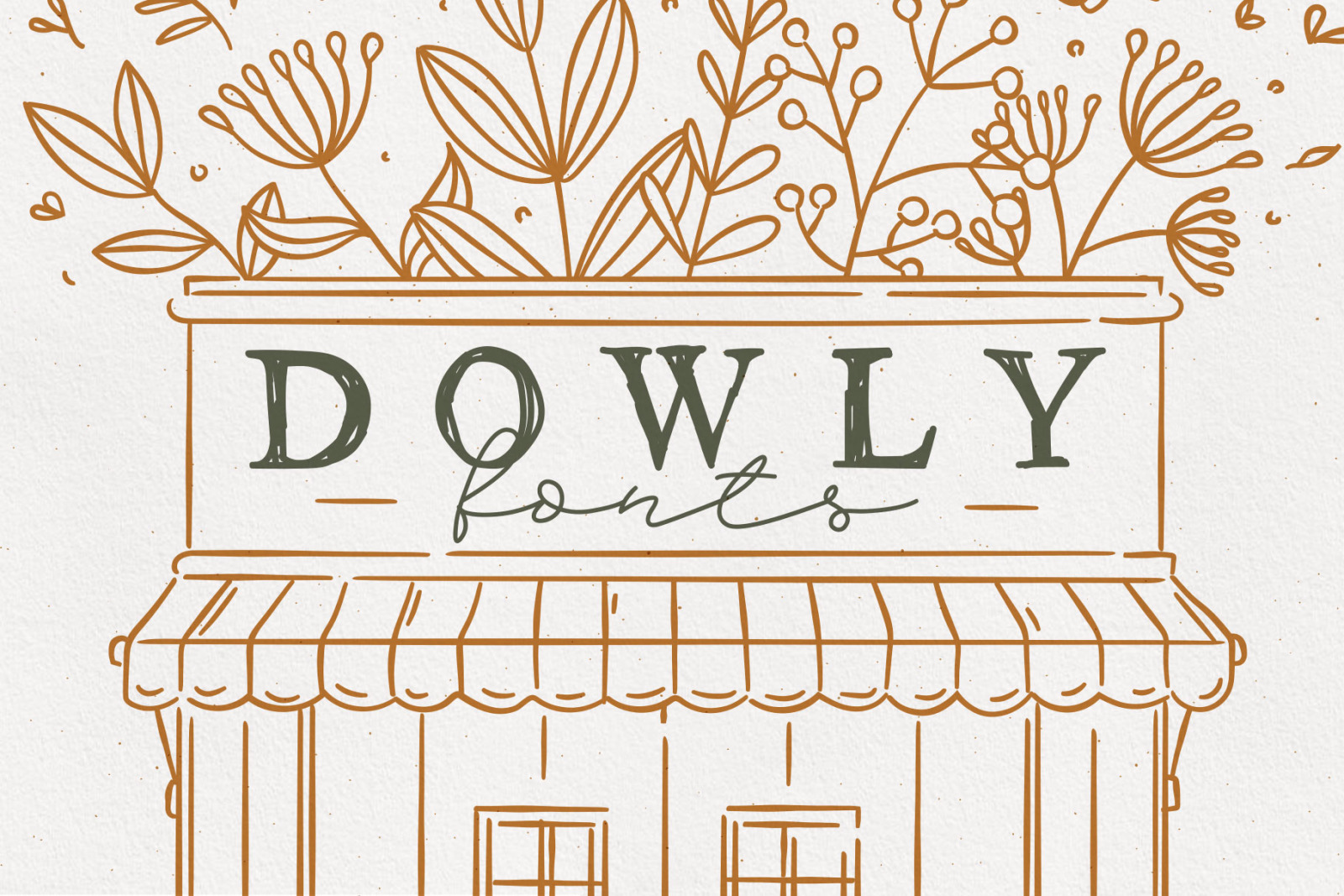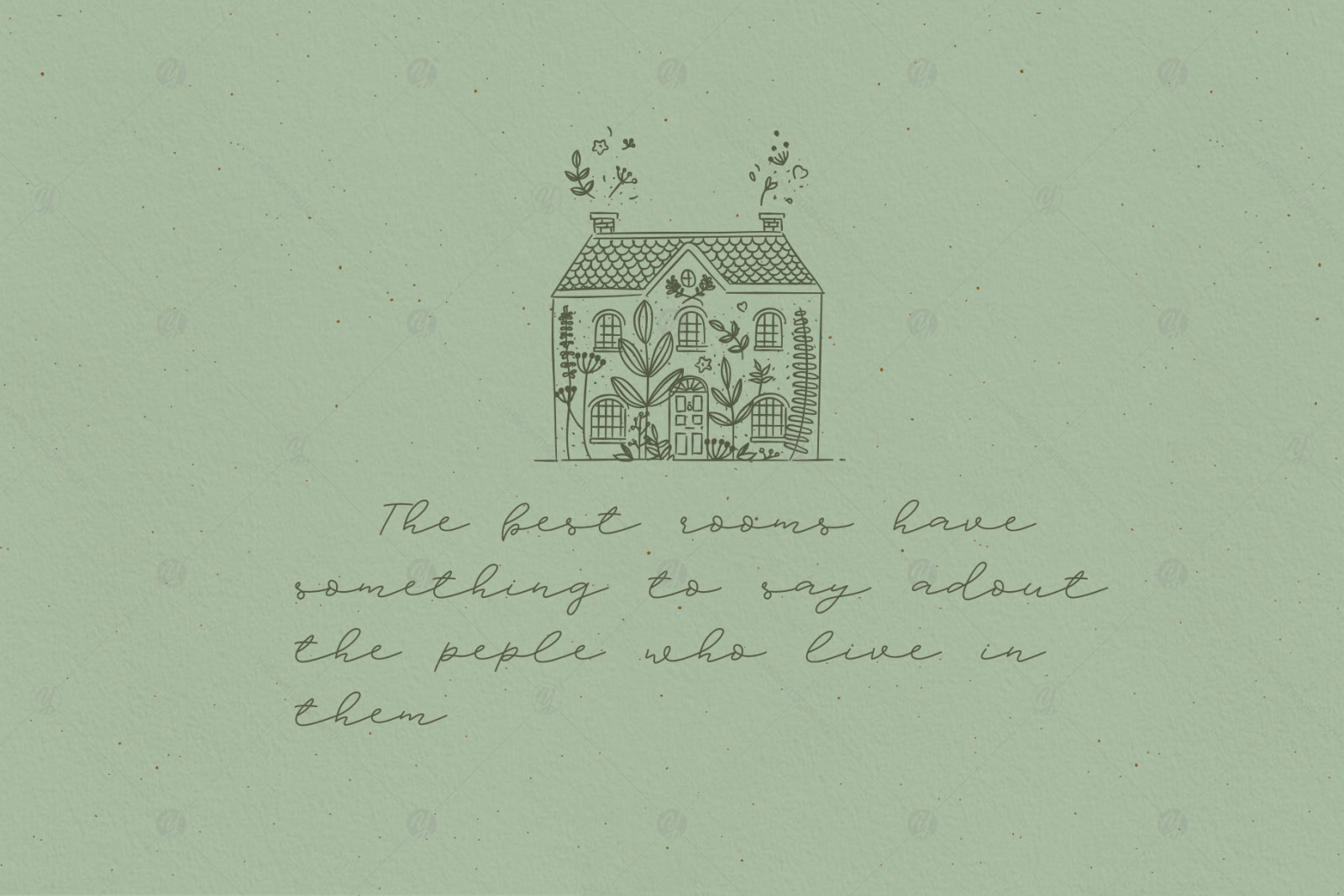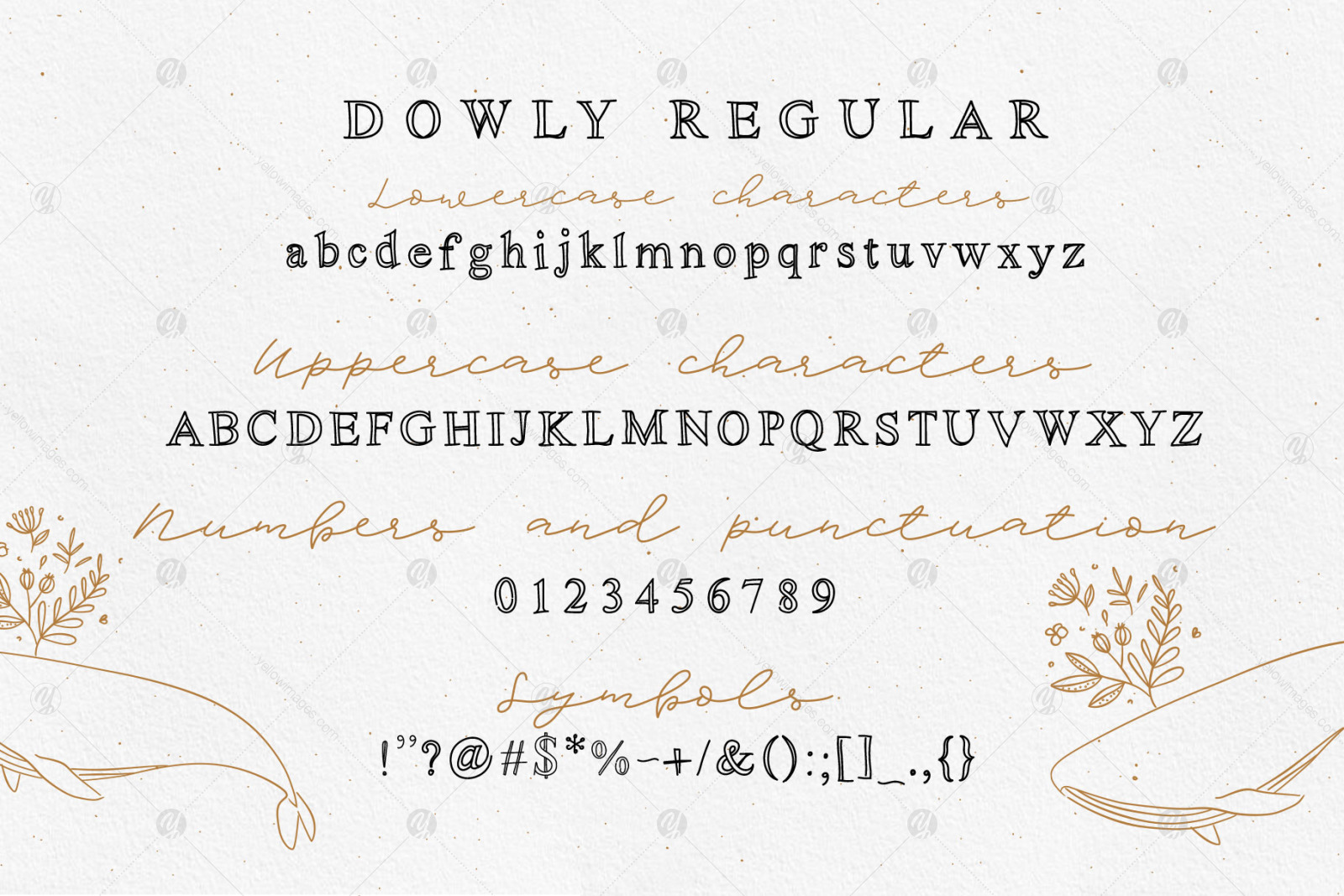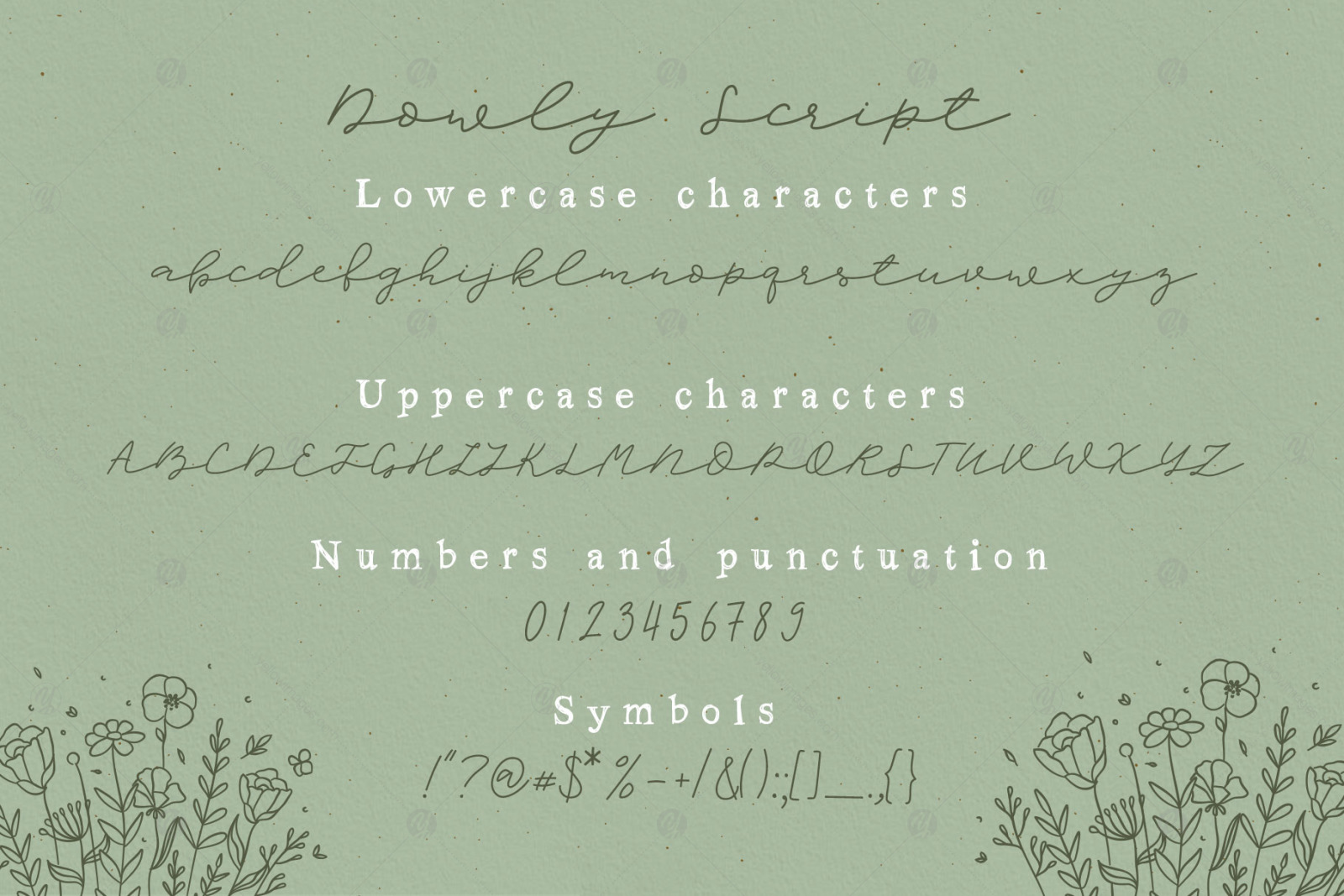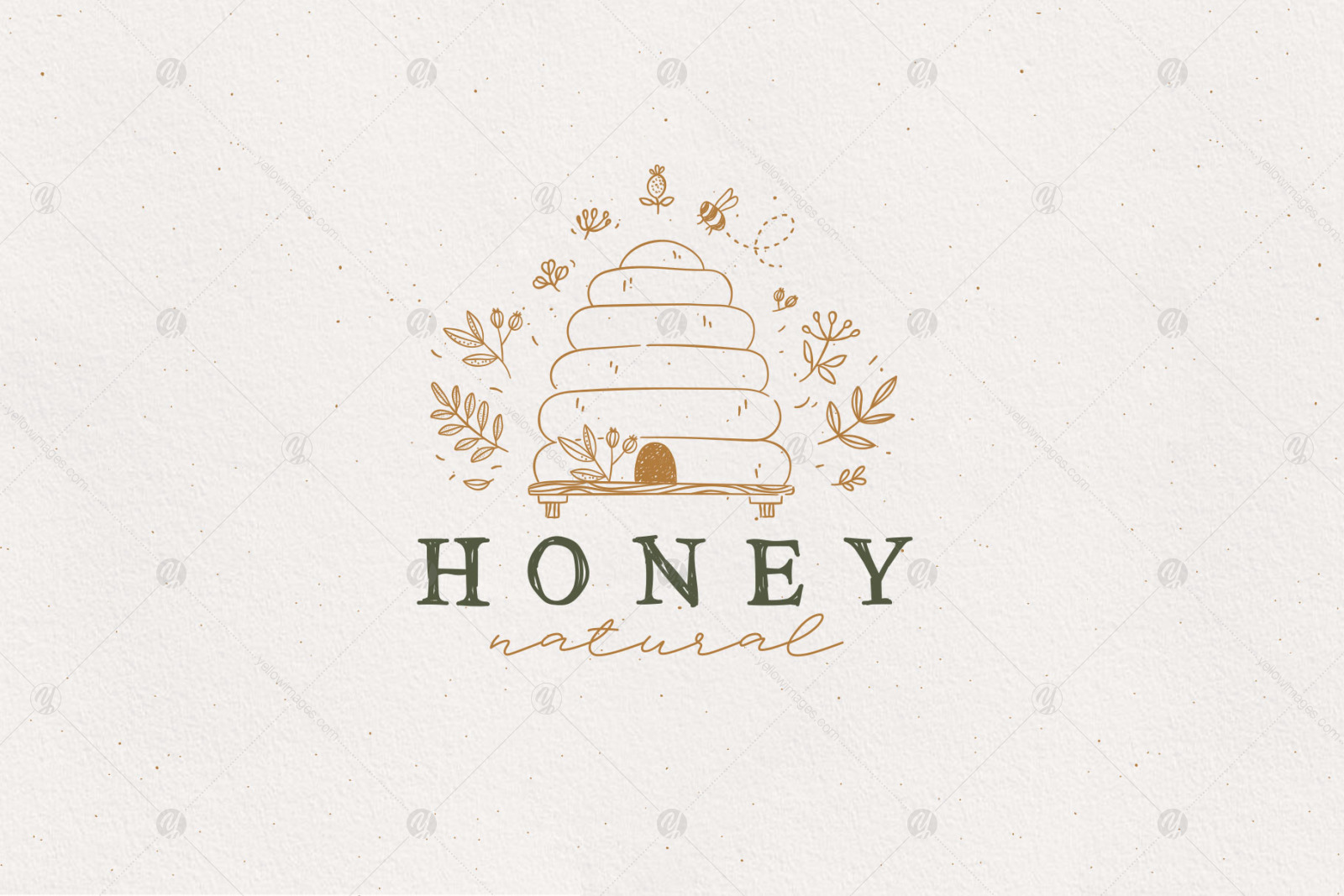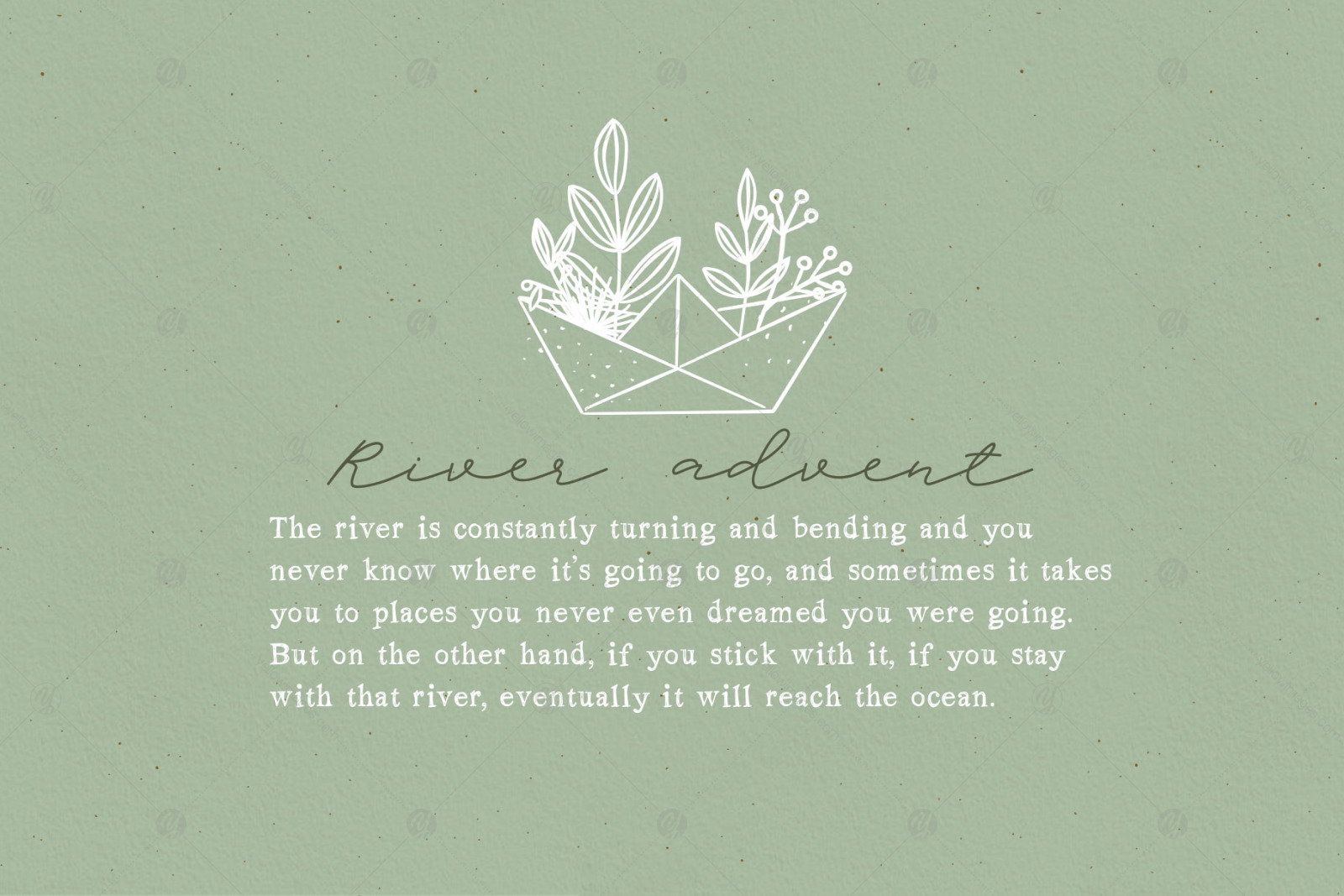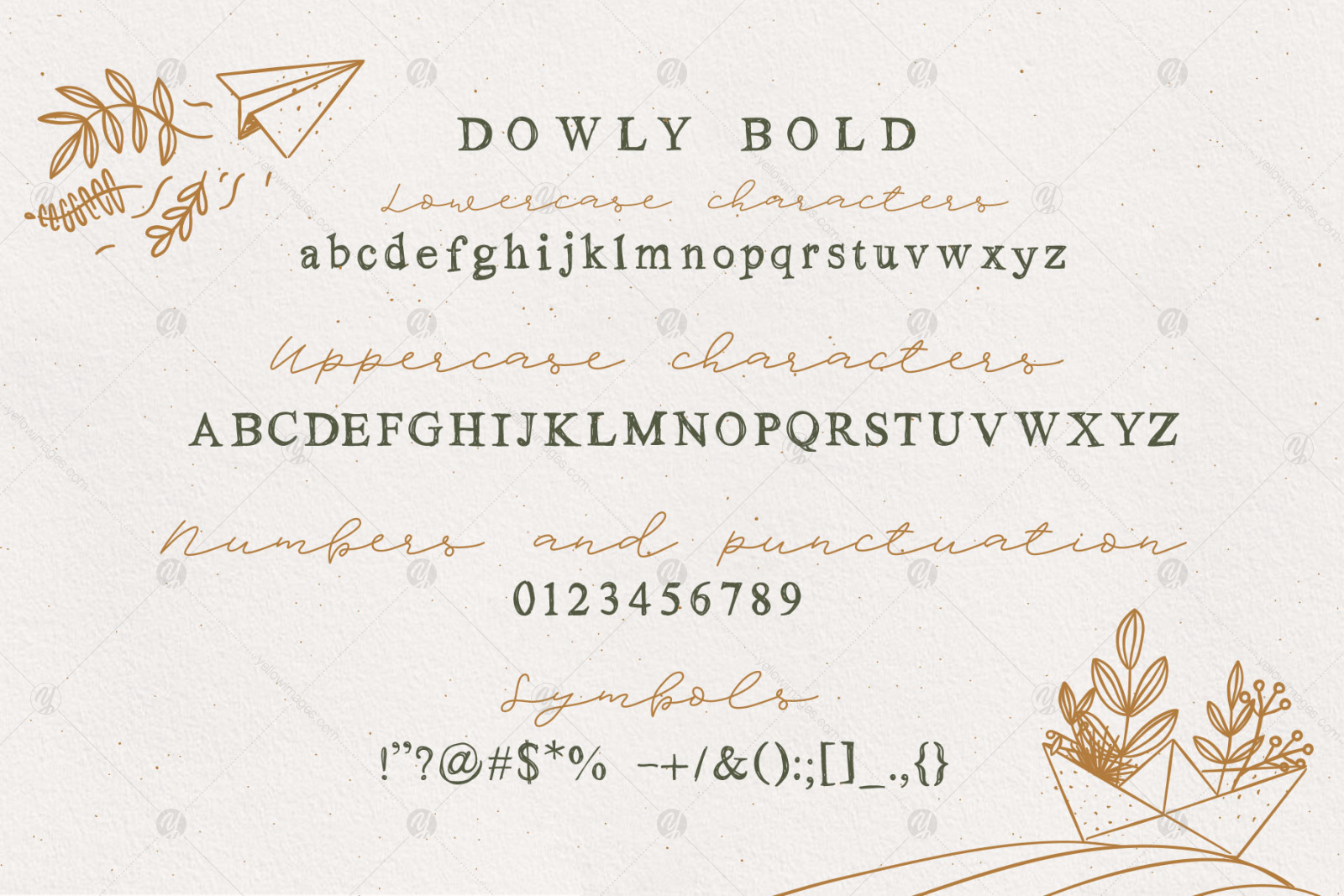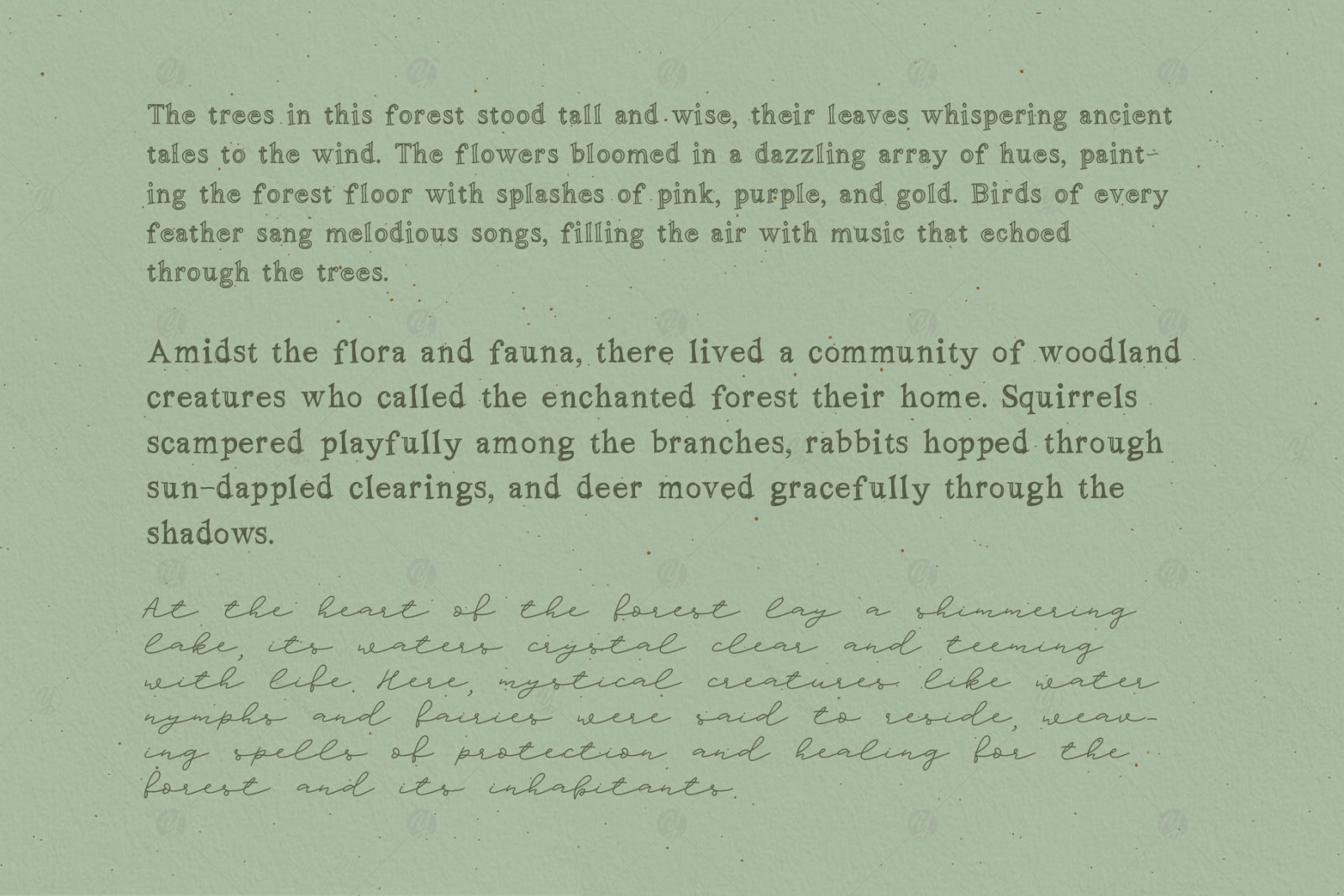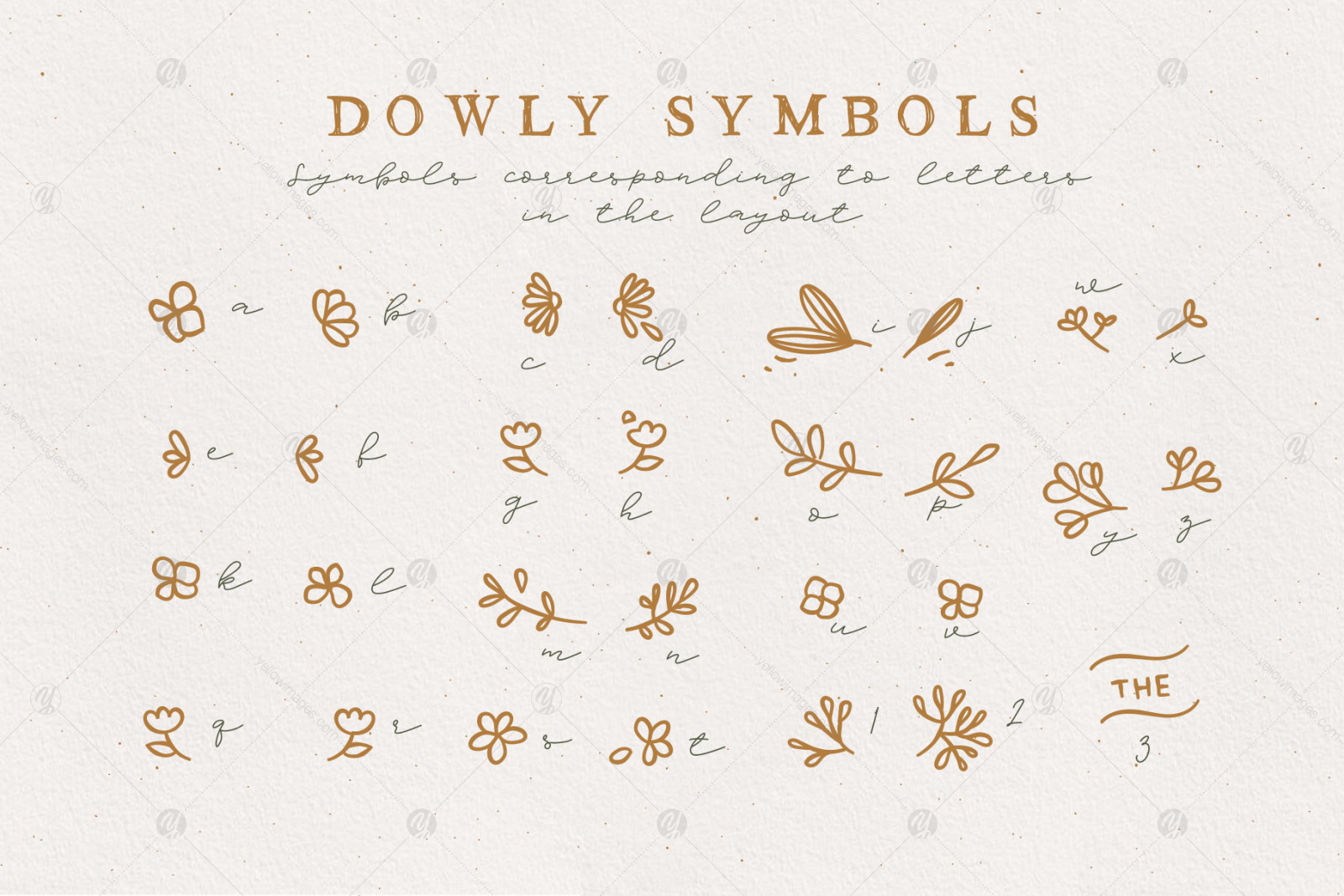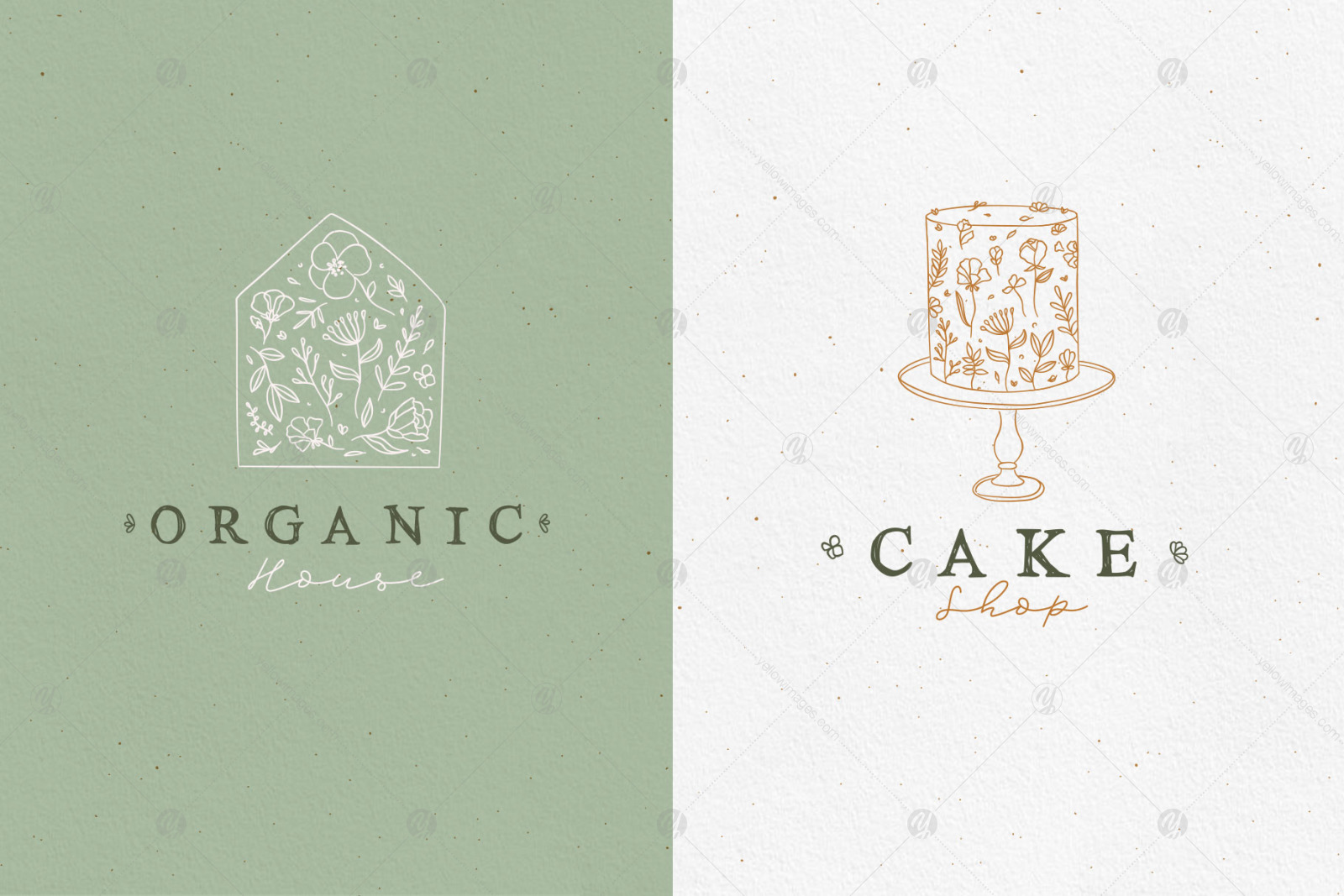
Dowly Font
Dowly Family is a handwritten font with a calligraphy flair, ideal for creating handwritten-style logos, wedding stationery, photographer watermarks logos, modern websites, and more.
Create unique style for your business or personal use.
Type the words and Add the unique shapes from Dowly Family to get a more stunning display.